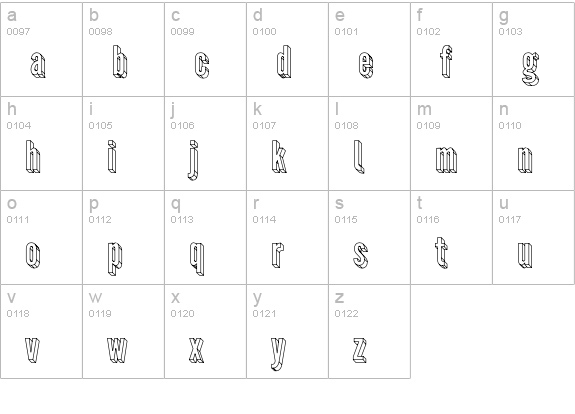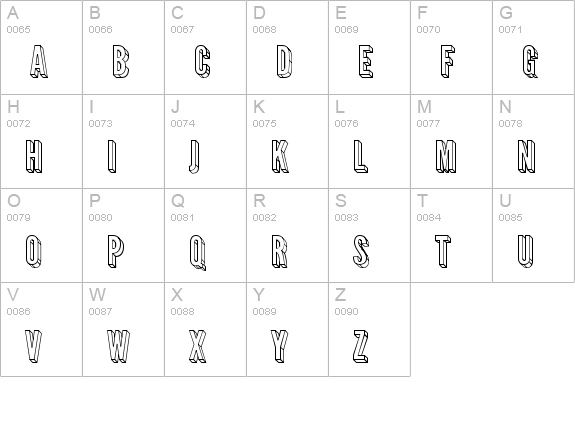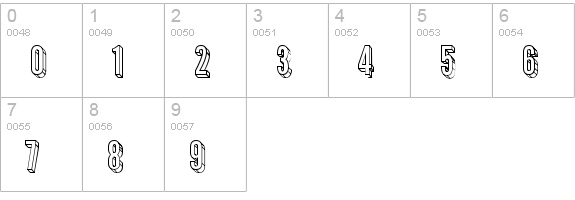
Warsaw Gothic 3D Font Details
Introducing Warsaw Gothic 3D font, a mesmerizing and captivating typeface that will bring a touch of dark elegance to your designs. Inspired by the intricate and mysterious world of gothic architecture, this font exudes an aura of enchantment and sophistication. With its carefully crafted 3D elements, Warsaw Gothic adds depth and dimension to every letter, creating a visually stunning effect that is sure to captivate your audience. Each character is meticulously designed, showcasing sharp edges and intricate details that beautifully merge into a cohesive and striking display. Whether you're working on a branding project, a poster design, or a website, Warsaw Gothic 3D font will elevate your work to a whole new level. Its unique and edgy personality is perfect for creating eye-catching headlines, logo designs, and any other project that demands attention. The best part? Warsaw Gothic 3D font is available for free download at FontsMarket.com. This means that you can unleash your creativity without any limitations or constraints. With just a few clicks, you can add this remarkable font to your collection and start creating stunning designs that will leave a lasting impression. Don't miss out on the opportunity to enhance your designs with the captivating allure of Warsaw Gothic 3D font. Download it for free today at FontsMarket.com and witness how it transforms your projects into works of art.